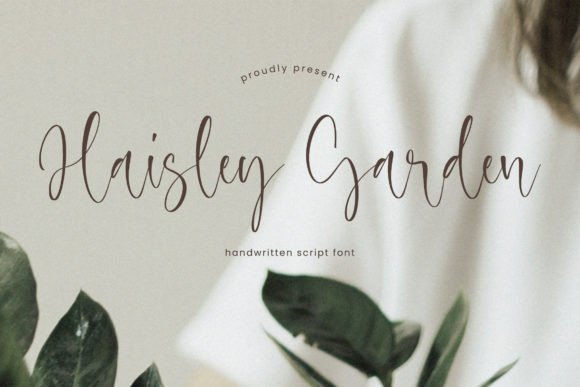
**Introducing Haisley Garden: The Enchanting Script Font That Will Transform Your Creative Projects**
In a world of digital monotony, let your words dance with elegance and charm, thanks to Haisley Garden, the captivating handwritten script font brought to you by Timur Type. This meticulously crafted font is not just a collection of letters; it's an exquisite symphony of strokes, curves, and flourishes that will elevate your creative projects to new heights.
**Unleash Your Inner Artistry**
With Haisley Garden, your words will transcend the boundaries of the ordinary and take on a life of their own. Its graceful strokes evoke a sense of timeless beauty, while its playful flourishes add a touch of whimsy and charm. Whether you're designing wedding invitations, crafting heartfelt letters, or creating stunning social media graphics, Haisley Garden will infuse your work with a unique and captivating aura.
**Perfect for a Myriad of Creative Endeavors**
Haisley Garden's versatility knows no bounds. It seamlessly adapts to a wide range of creative pursuits, from product packaging and branding projects to magazine layouts and social media posts. Its ability to effortlessly elevate any design makes it a must-have for graphic designers, crafters, and creative professionals alike.
**The Ideal Font for Your Wedding Video**
If you're planning your special day, Haisley Garden is the perfect font to capture the essence of your love story. Its delicate script will add a touch of romance and elegance to your wedding video, ensuring that your memories are preserved in a truly unforgettable way.
**Multilingual Support for Global Appeal**
Haisley Garden embraces diversity, offering extensive multilingual support to cater to a global audience. No matter what language your words speak, this font will faithfully convey their message with grace and charm.